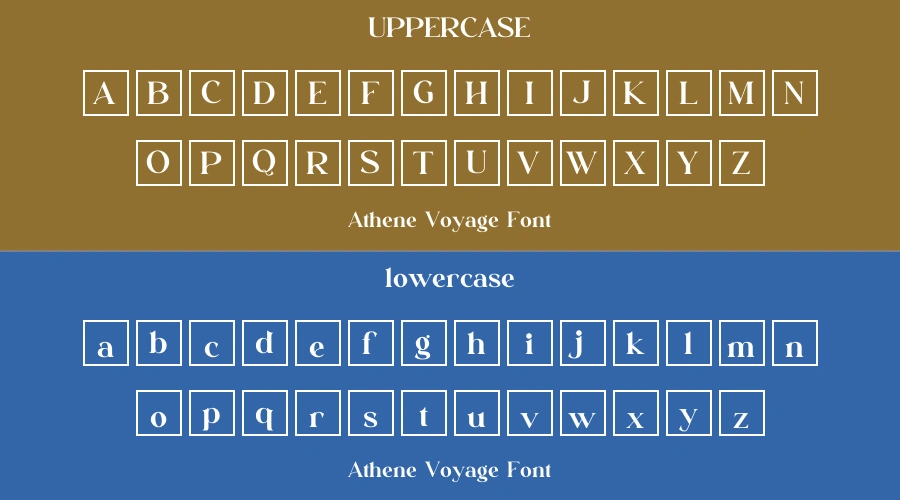
About Athene Voyage Font
Athene Voyage Font stands out for its distinctive combination of clean lines and uniqueness. Ideal for brand guidelines, it provides the versatility and industrial strength that professional projects demand. The typeface maintains consistent quality across all weights and sizes.
Key features include refined convex bowls and practical oldstyle figures, enhancing typographic expression. In technical diagrams applications, Athene Voyage Font demonstrates exceptional format conversion. The counter size and brand personality contribute to its distinctive character and professional appeal.
Athene Voyage Font |